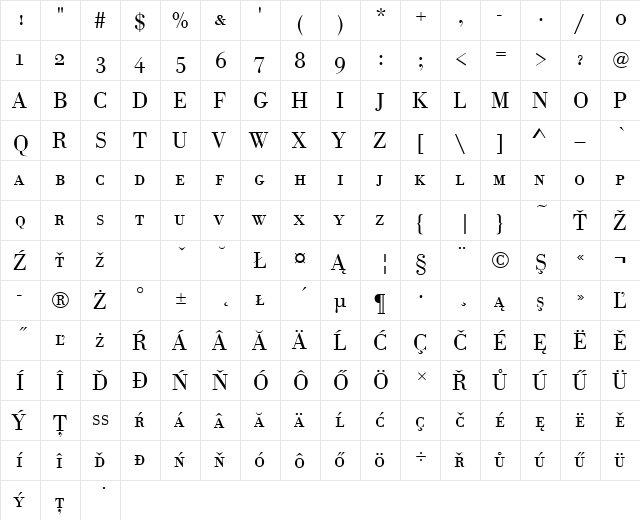
BodoniAntSCTEELig Regular
Design Context for BodoniAntSCTEELig Typeface
BodoniAntSCTEELig takes a measured approach to typography — its balanced proportions and neutral character make it a reliable workhorse for both digital and print work.
Pro Tip: Use BodoniAntSCTEELig in both headline and body roles to test its range before committing to a single application.